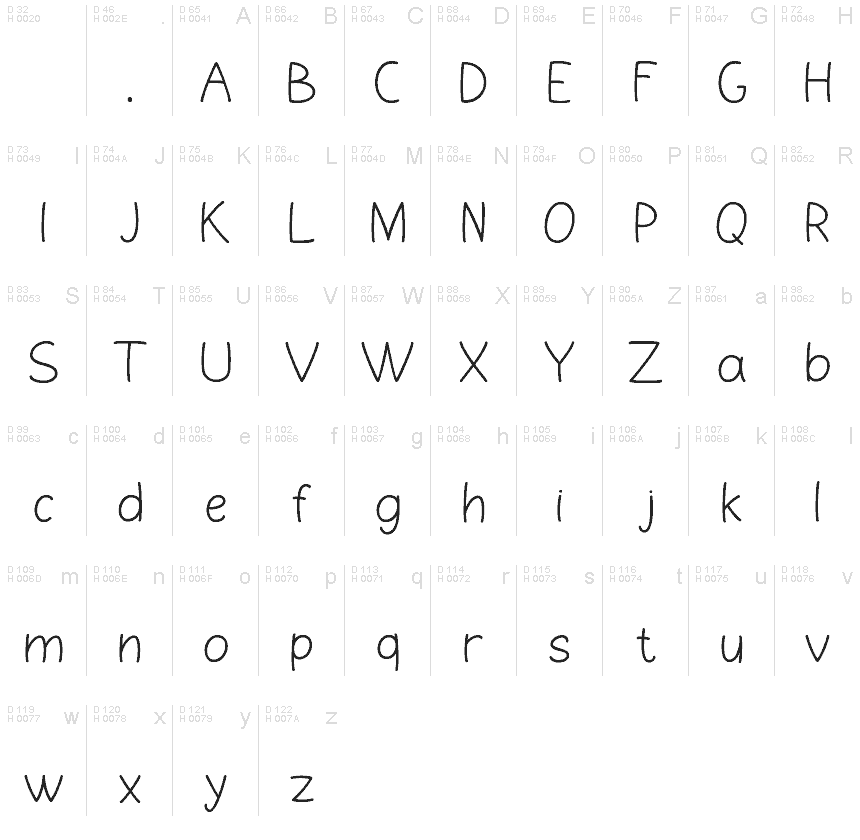
Kattys Regular
Kattys font, crafted by Achmad Yani of Flawless and Co., is a light handwritten font that effortlessly embodies a modern, casual elegance. With its approachable style, Kattys presents itself as a suitable choice for contemporary applications in both print and digital media.
Use it for greeting cards, invitations, postcards, banners and labels. The font can also be applied in branding projects to derive an appealing style on logos or packaging products like bottles or boxes.